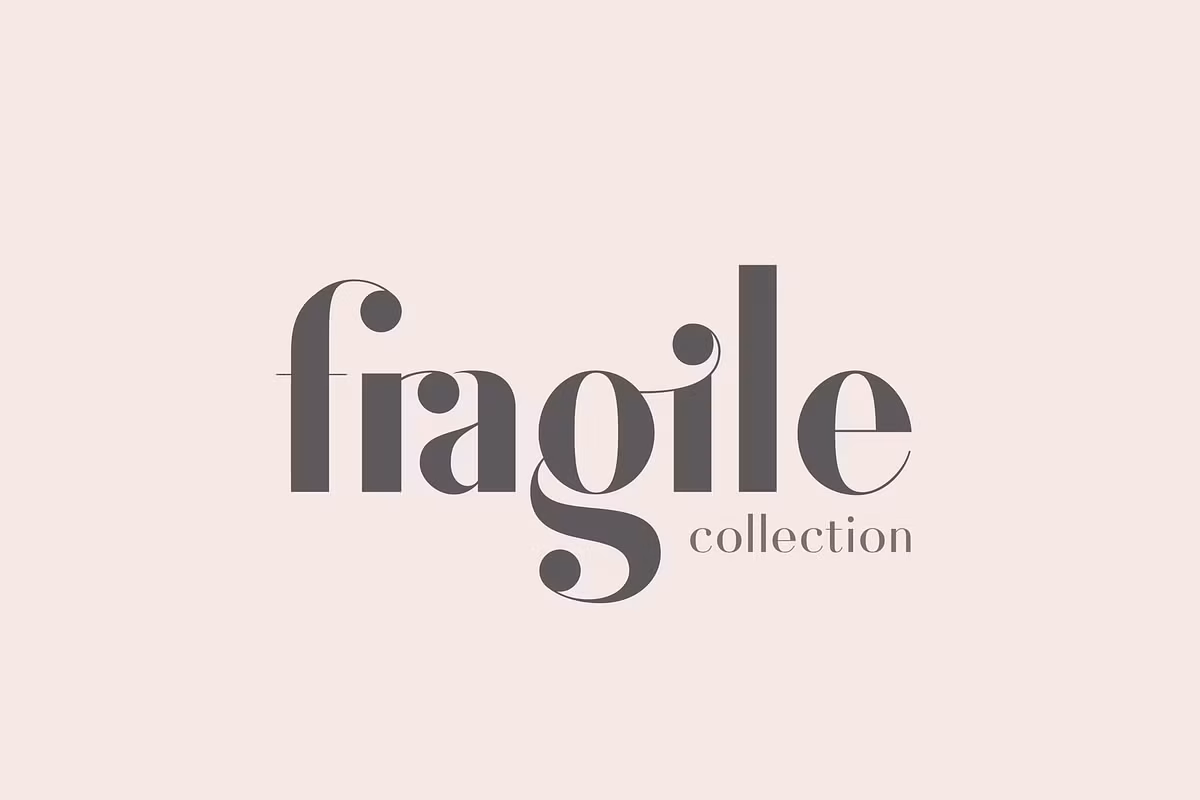
Fragile Collection (Font Bundle) Free Download
Fragile Collection (Font Bundle) Free Download is a carefully curated set of elegant and sophisticated fonts designed to bring refinement and beauty to your designs. This bundle includes a variety of typefaces, from delicate script fonts to modern serifs, offering you versatility for branding, logos, invitations, social media graphics, and more. Whether you're designing for a luxury brand, a wedding event, or a creative project, Fragile Collection (Font Bundle) Free Download provides all the tools you need to create visually stunning, high-end designs. Test the fonts in personal projects before purchasing a commercial license and elevate your work with this beautifully crafted font collection.